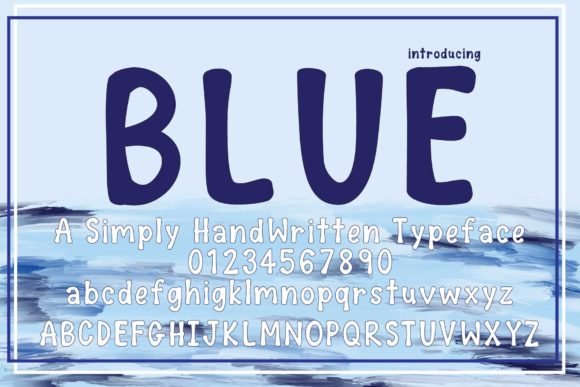
Unleash Your Creativity with Blue Font
Have you ever stared at a blank canvas, waiting for that spark of inspiration to strike? For designers, those moments can be both thrilling and intimidating. But what if I told you that there’s a font that can help spark that creativity and take your designs to the next level? Enter Blue Font, a cool and fun display font that’s perfect for adding a touch of personality to your projects.
With its natural and unique style, Blue Font is incredibly versatile and can be used in a wide range of designs, from posters and advertisements to digital graphics and social media posts. Whether you’re a seasoned designer or just starting out, this font is a valuable addition to your toolkit. Its simplicity and charm make it easy to incorporate into any design, and the results are sure to be impressive.
Blue Font Key Features
- Font Family: Blue Font is a sans-serif typeface designed for digital use, offering a clean and modern aesthetic.
- Unique Characteristic: Blue Font features a unique ‘x-height’ design, which provides improved readability and legibility, especially in digital environments.
- Font Styles: Available in regular, italic, bold, and bold italic styles, offering a range of options for designers and typographers.
Blue Font Review
I recently had the chance to work with Blue Font, and I have mixed feelings about it. On one hand, there are some things that I really like ✨.
- It has a modern and sleek aesthetic that can easily fit into any contemporary design project.
- The font’s versatility makes it suitable for both print and digital applications.
- It’s highly customizable, allowing designers to experiment with various styles and weights.
However, there are also some limitations that I need to consider ⚠️.
- The font can be a bit too minimalist for some projects, which may require a bolder or more expressive typography.
- The availability of ligatures and contextual alternates is limited, which can be a problem for designers who want more control over the font’s behavior.
- The font may not be the best choice for projects that require a high level of legibility or readability, as it can be quite thin and delicate.
Overall, I think Blue Font is a solid choice for designers who are looking for a clean and modern typography solution. While it may not be the best fit for every project, it’s definitely worth considering for the right kind of design challenge.
Blue Font is commonly used for:
- Creating eye-catching headings and titles
- Designing branding materials such as logos and business cards
- Adding a touch of professionalism to presentations and reports
Tips for Getting the Most Out of Blue Font
To get the most out of Blue Font, consider the following tips:
- Use Blue Font in combination with other bold fonts to create visual interest
- Experiment with different font sizes and styles to find the perfect balance
- Use Blue Font consistently throughout your design to create a cohesive look